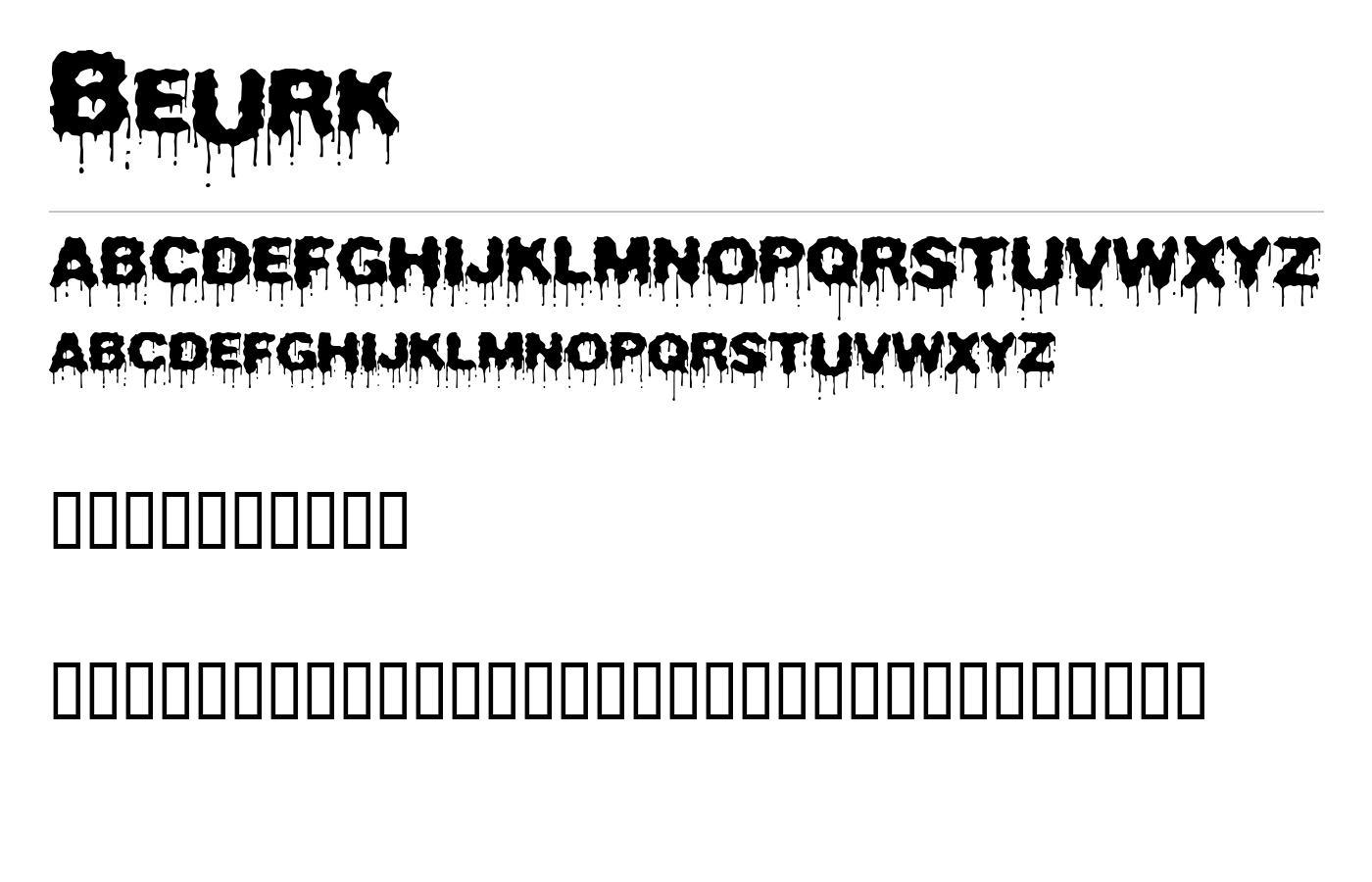
Beurk Font is a bold, heavy display typeface with a dripping, irregular style that conveys a messy, grungy, and somewhat eerie look. Its uppercase, condensed letterforms with organic, uneven edges and fluid drip details make it ideal for creative projects that require a striking, horror-inspired or underground vibe. This font works best for eye-catching posters, Halloween designs, or edgy branding where a dramatic, attention-grabbing impact is needed.
Beurk Font
About Beurk Font